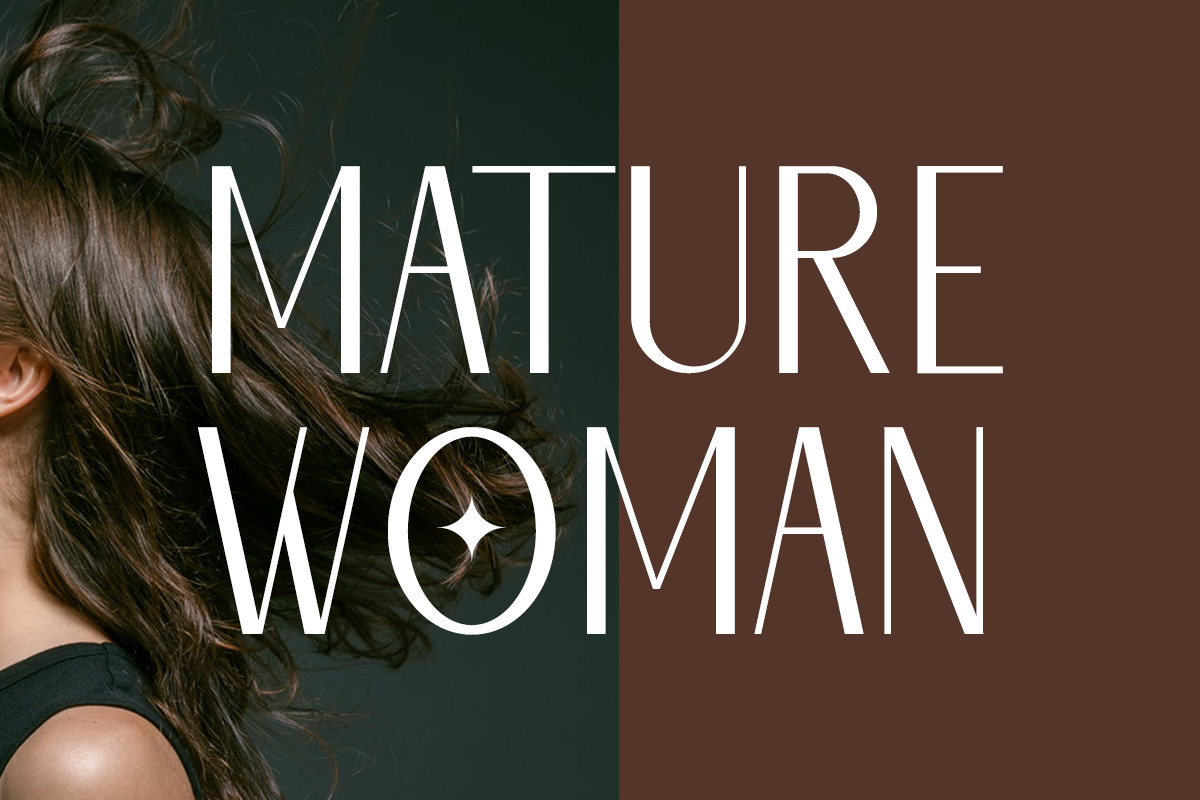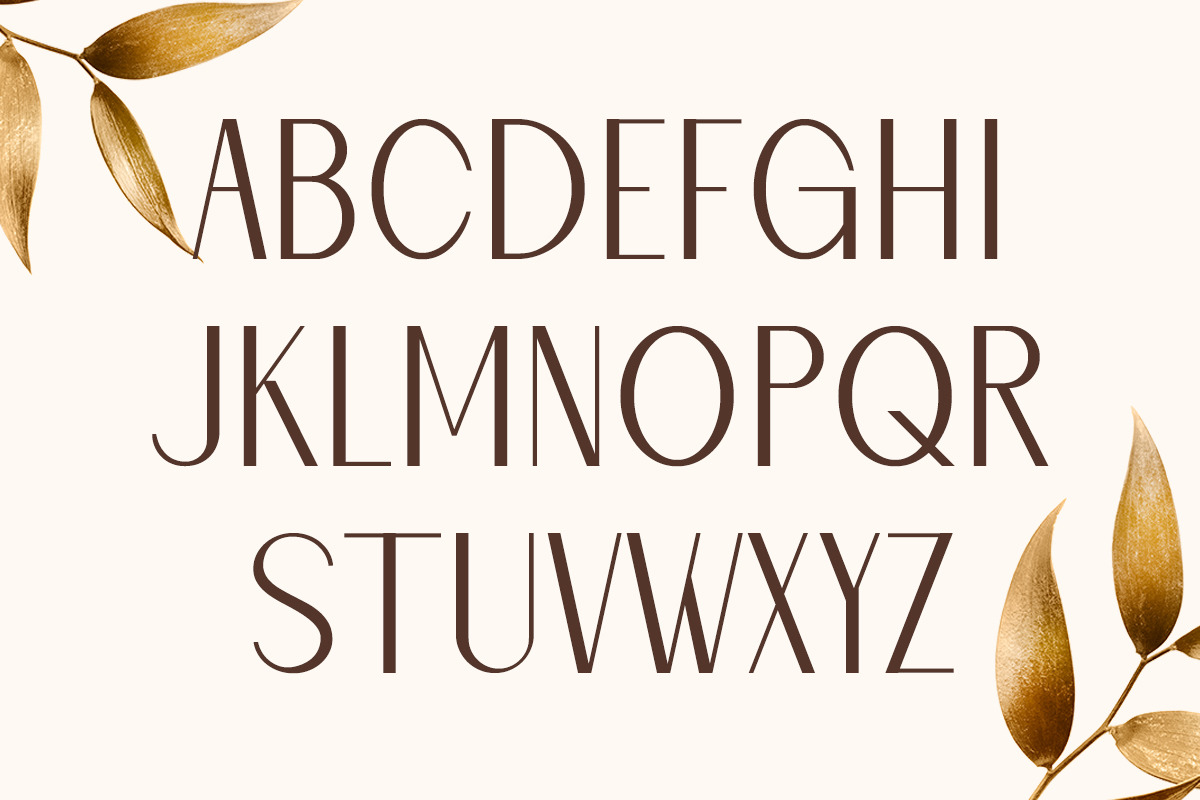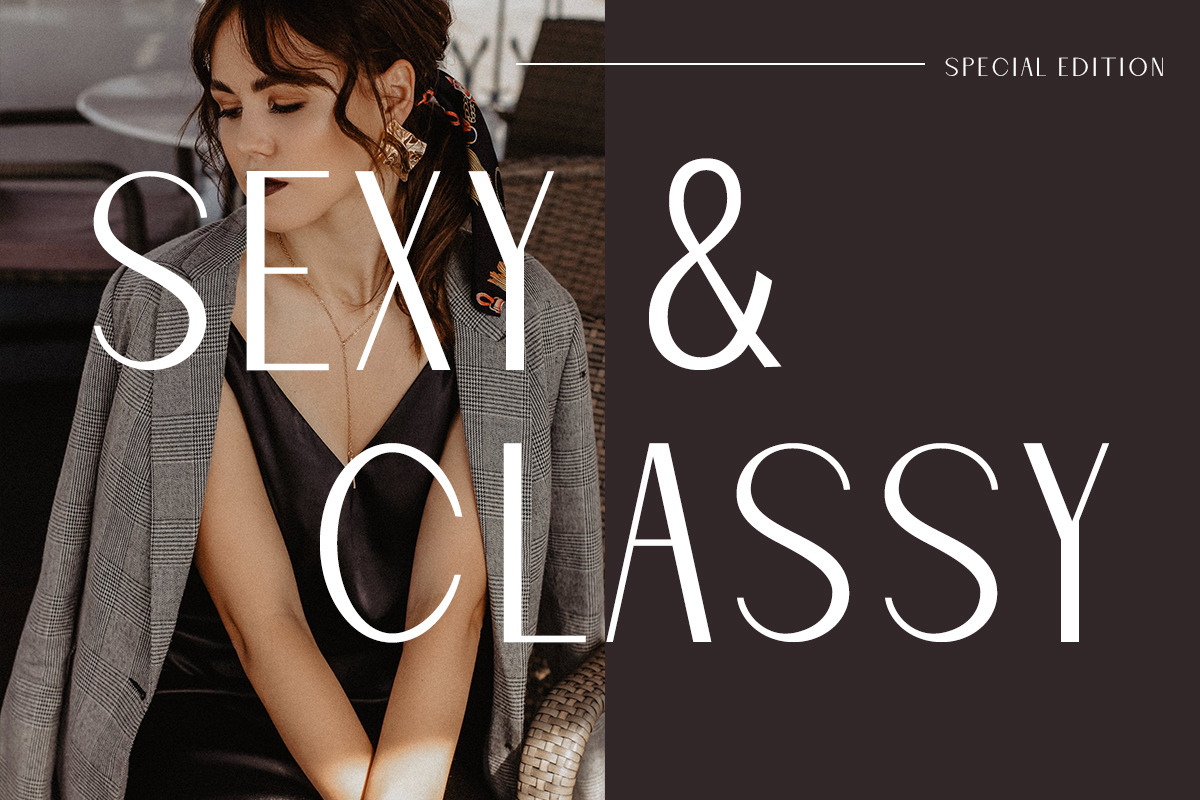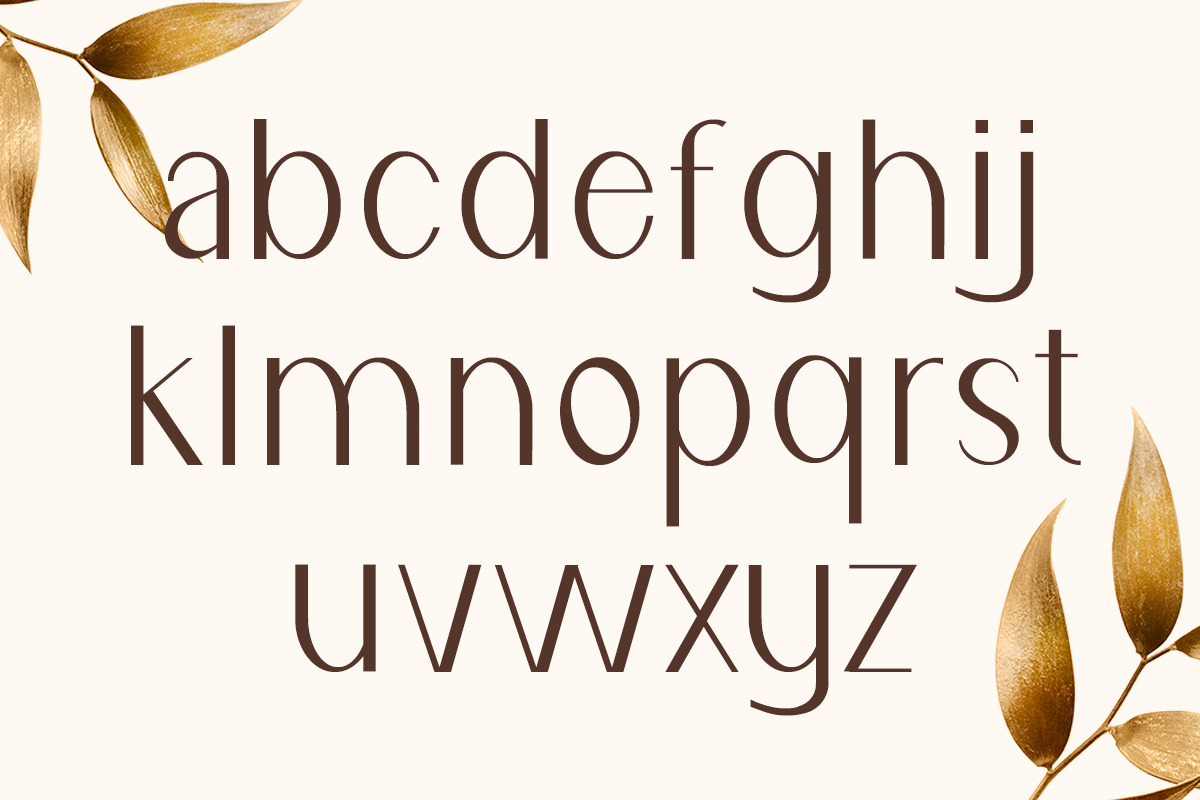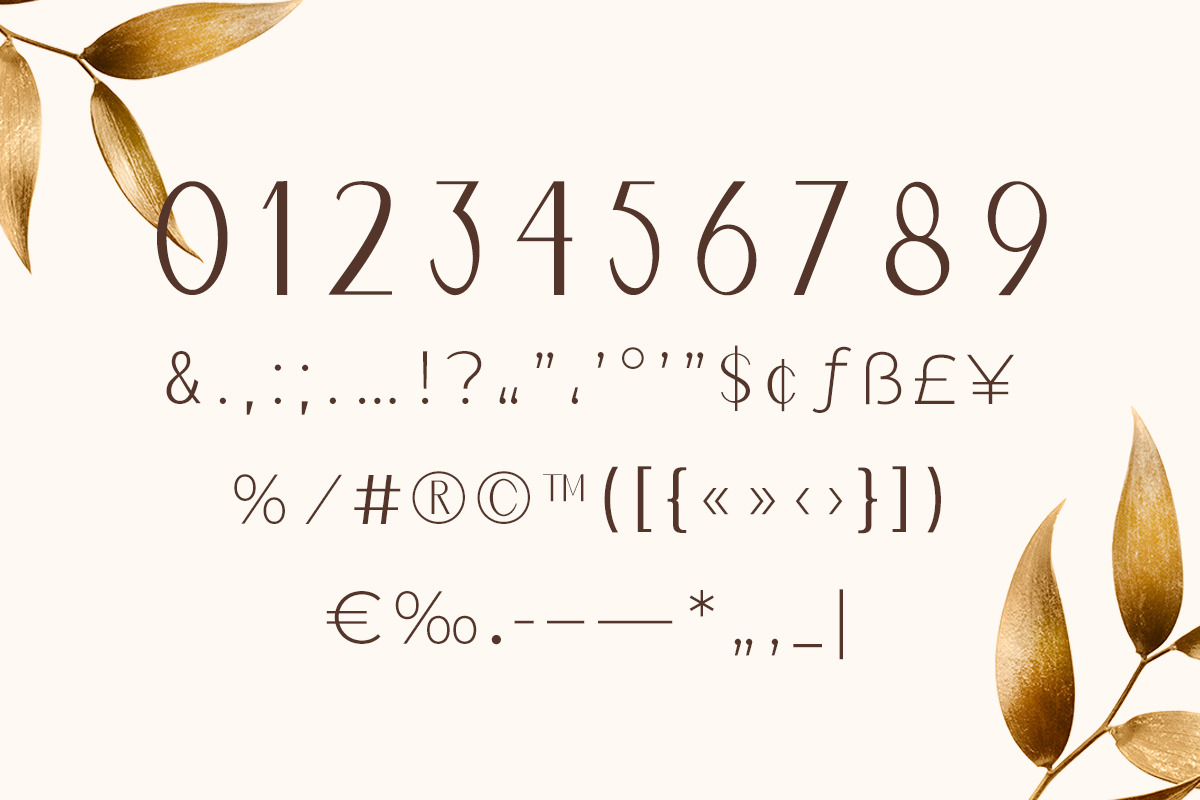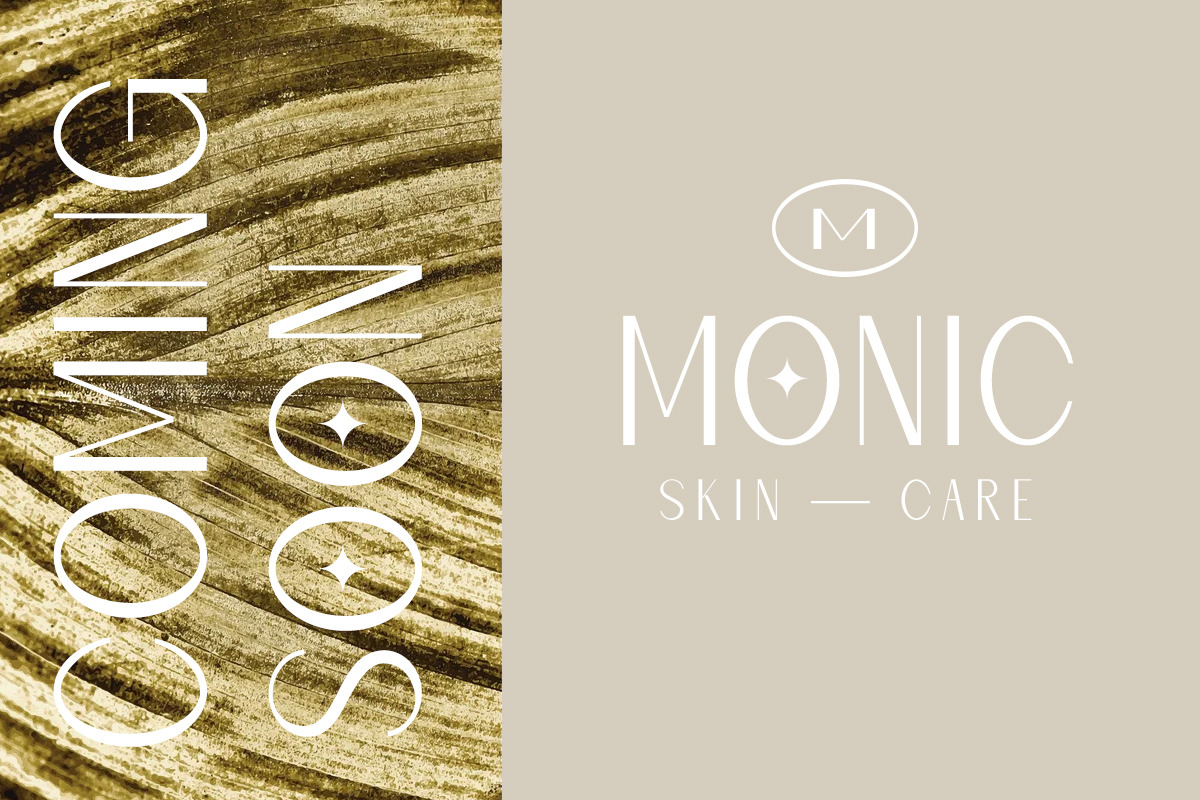
Naomi Elegant Typeface
Are you an artist or creative person who wants to set themselves apart?
Introducing Naomi Modern Sans, an exclusive and trendy font.
Perfect for high-end fashion branding, cinematic videos, social media titles, and other cutting-edge creations! What sets this typeface apart from the rest?
It’s easy-to-read yet sophisticated.
And although it already has some flair to it—you don’t need to go overboard and add anything else. Just use the fonts in different sizes and layouts—and you’ve got yourself a truly stunning piece of art!
- Multilingual support and complete characters set
- Multilingual support in this modern sans serif font
- Well known for its exceptional readability
- Letters, numbers, punctuation, multilingual support.